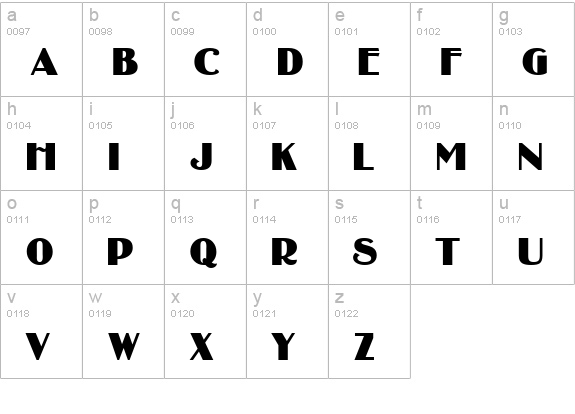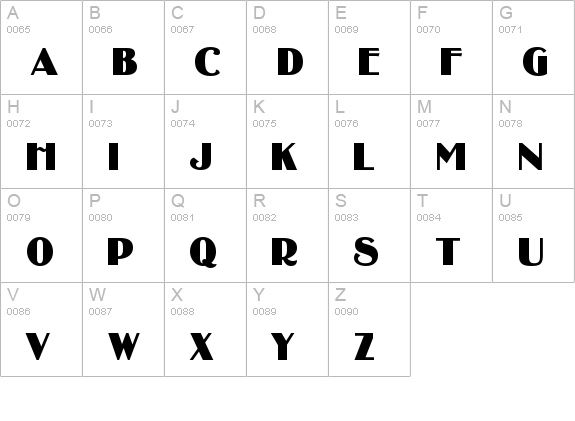
AsukaCapsSSK Font Details
AsukaCapsSSK font is a stunning display typeface that exudes elegance and sophistication. With its intricate details and stylish design, this font is perfect for adding a touch of luxury to any project. The unique caps and sleek lines make AsukaCapsSSK font ideal for use in branding, headlines, invitations, and more. What's even better is that AsukaCapsSSK font is available for free download at FontsMarket.com. This means you can easily access this beautiful font and enhance your designs without any cost. Don't miss out on this amazing opportunity to elevate your projects with the exquisite AsukaCapsSSK font. Download it today and let your creativity shine!